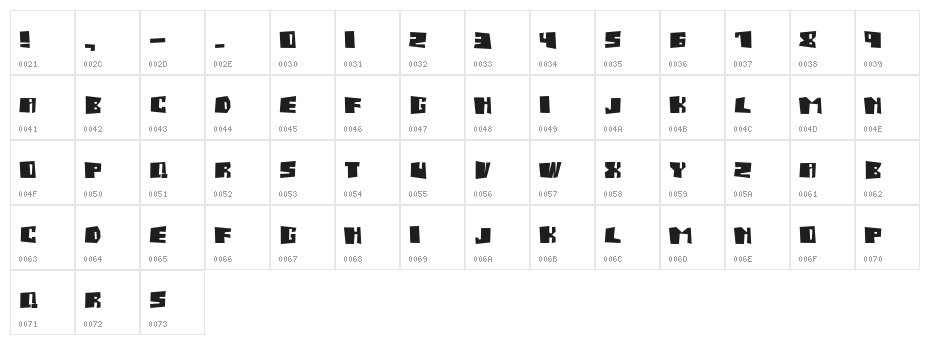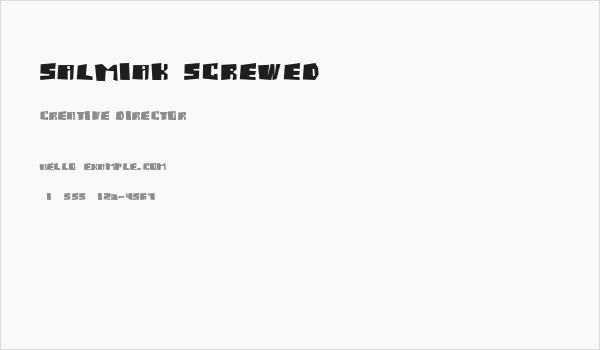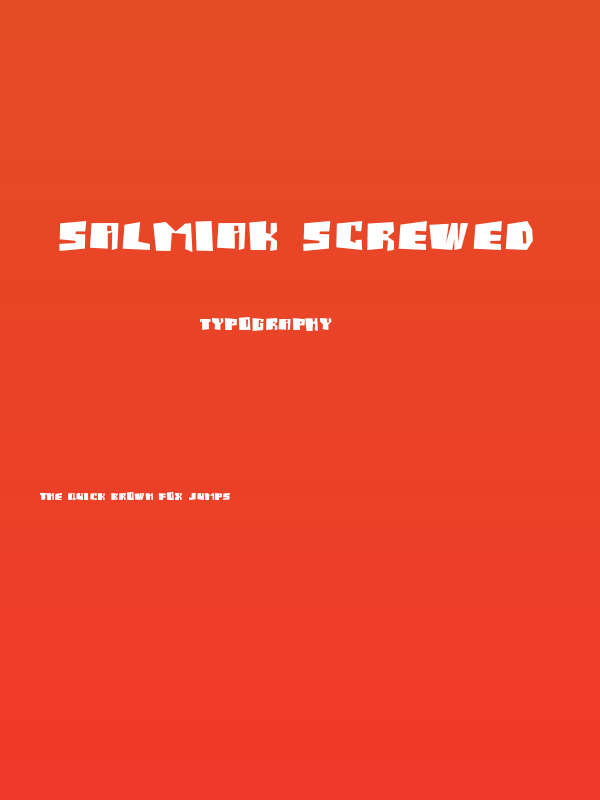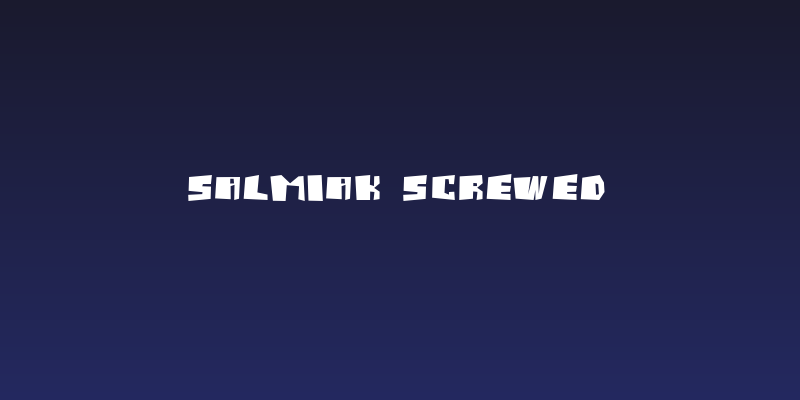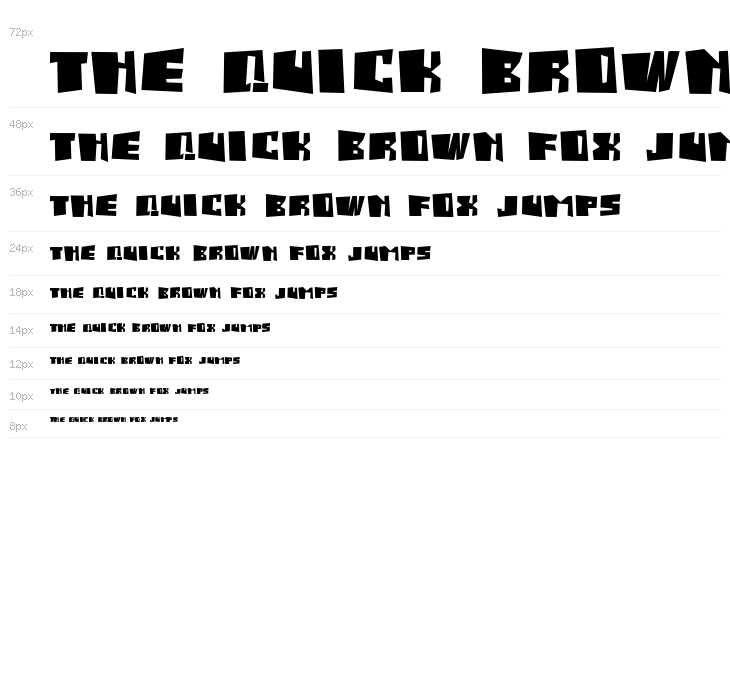
Salmiak Screwed Font
Salmiak Screwed Description
This font features a bold and dynamic style with a distinct, angular design. Each character appears to be slightly twisted or skewed, giving it a unique, edgy appearance. The uppercase and lowercase letters maintain a consistent width, contributing to a cohesive look. The numbers and special characters follow the same angular theme, ensuring uniformity across all glyphs. The font's boldness and geometric shapes make it stand out, ideal for projects that require a strong visual impact.
| Proposed Projects | Ideal for posters, album covers, video game graphics, and branding that requires a bold, edgy look. |